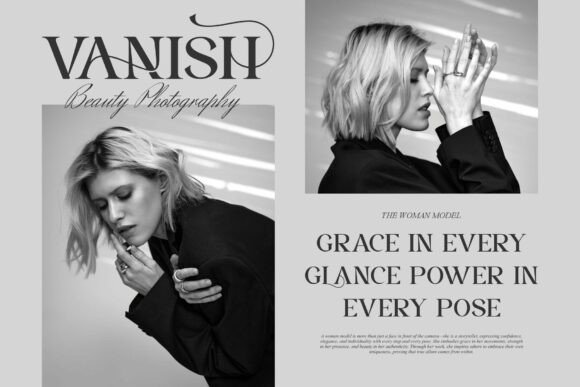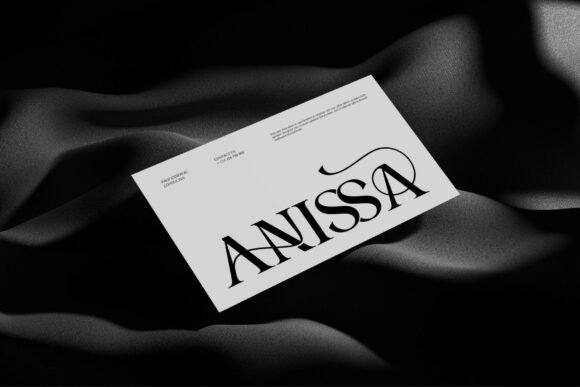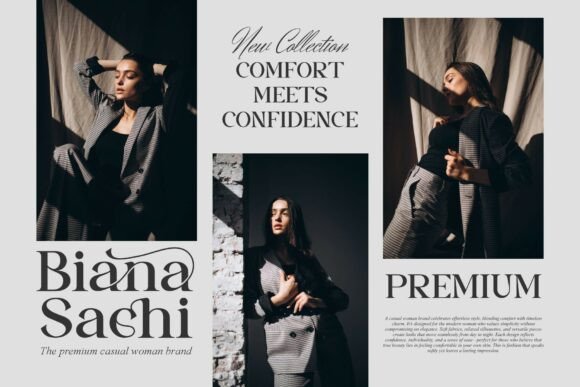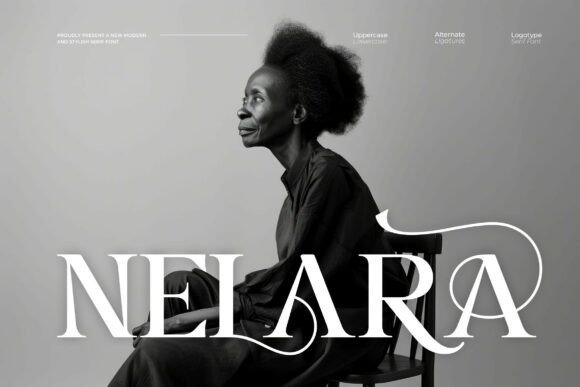
Introduction to Nelara Font
Nelara Serif is a modern and classy font type for all branding and logo designs.
This modern and classy Serif font has a beautiful character This font is suitable for invitation card designs, cool logos, movie titles, movie names, business cards, book titles, brand names, and various other designs.
Nelara Font offers exceptional quality and versatility, making it a valuable addition to your design toolkit. Whether you’re creating for personal projects or commercial use, Nelara Font delivers professional results.